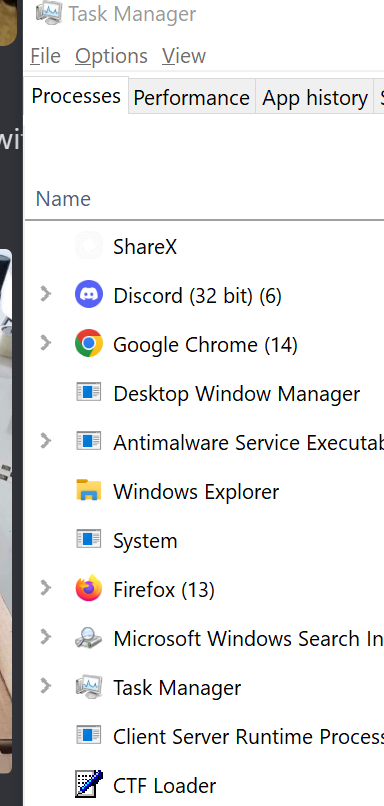
Windows sucks: Ugly Bitmap Font (2021)
Windows 10 Still Using Bitmap Font
Microsoft Windows 10 has ugly jagged text all over.
See those ugly jagged letter edge text? That is bitmap font. See those ugly jagged line icons? Those are bitmap icons of 20 years old.
Amazing pretty boys on stage telling you about their new metro user interface design, yet still using 20 years old font.
Windows 10 Still Using Bitmappd Image for User Interface Widgets
look at the ugliness of the arrow icon.
Windows 10, Bitmapped Font for Chinese Language Bar
it's incredible, in Microsoft Windows 10, it's common to see these old gui with bitmapped font.